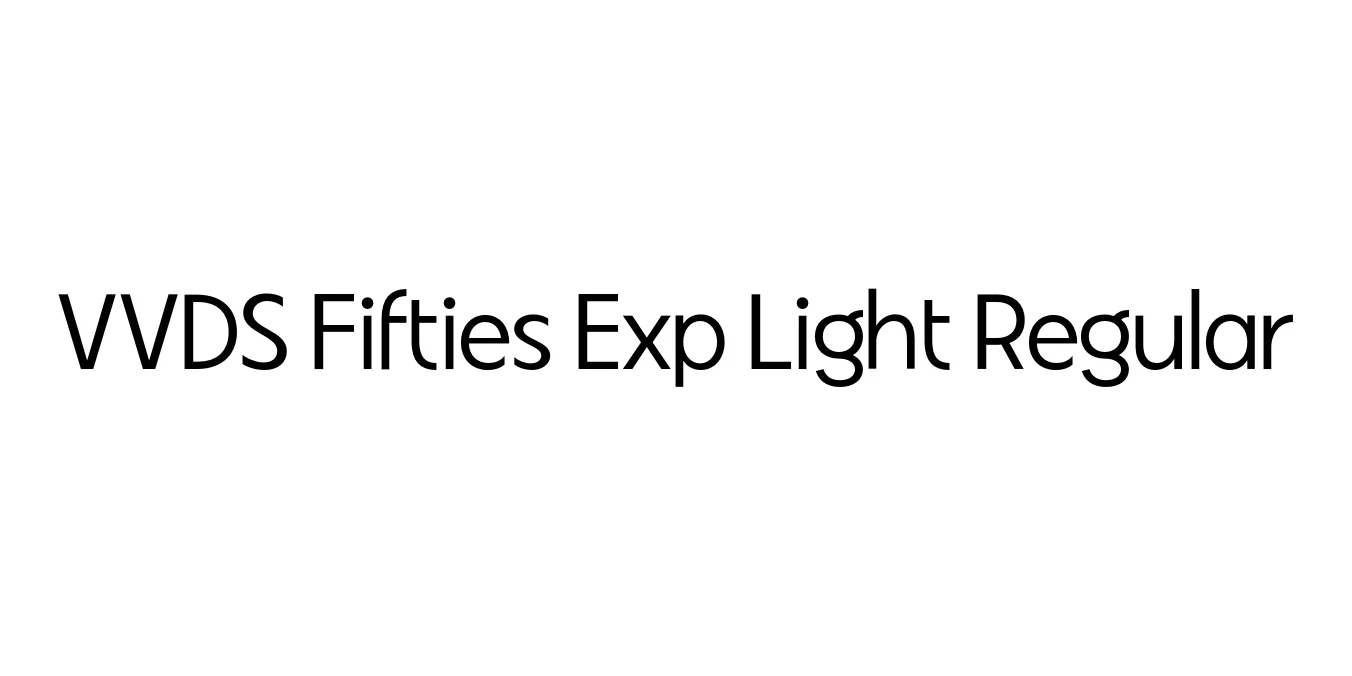
VVDS Fifties Exp Light Regular
Designed by Pavel Korzhenko (Vintage Voyage Design Supply)
VVDS Fifties Exp Light Regular is a sophisticated sans-serif typeface that draws inspiration from the iconic aesthetics of mid-century modern graphic design. Developed by Pavel Korzhenko, the founder of Vintage Voyage Design Supply, this font captures the optimistic and clean spirit of the 1950s. The 'Expanded' variant provides a generous horizontal footprint, making it particularly effective for display purposes where a sense of openness and luxury is desired.
The Light Regular weight offers a delicate and airy quality, contrasting the heavier, more punchy weights in the Fifties family. It is meticulously crafted to maintain legibility while emphasizing the geometric simplicity of the post-war era. This font is a versatile tool for designers looking to blend historical charm with contemporary clean lines, suitable for high-end editorial layouts and refined brand identities that require a touch of nostalgia.
VVDS Fifties Exp Light Regular Best Uses
Ideal for luxury fashion and lifestyle brand logos.
Perfect for magazine headlines and stylish pull quotes.
Great for minimalist print ads and retro-themed campaigns.
Enhances premium product packaging with a sophisticated vintage touch.